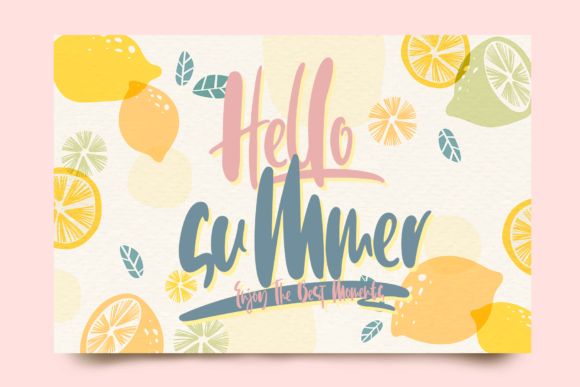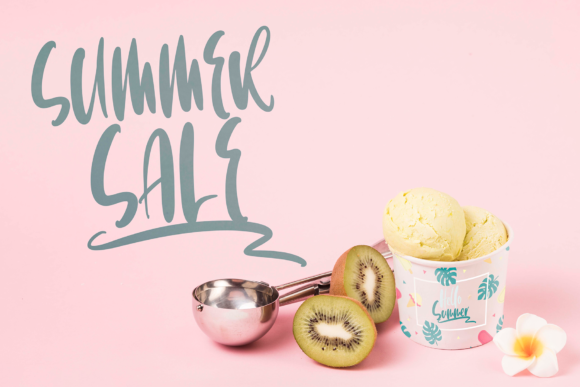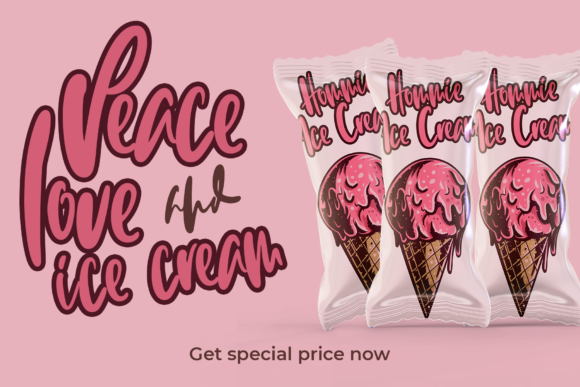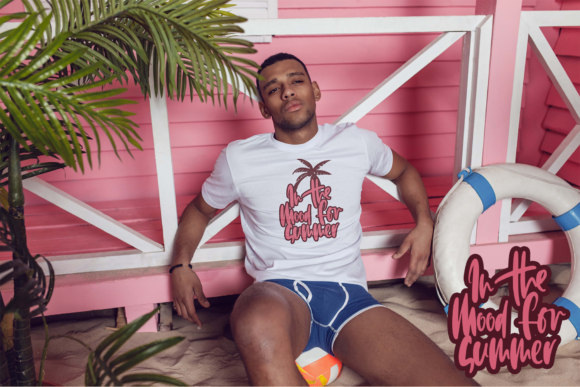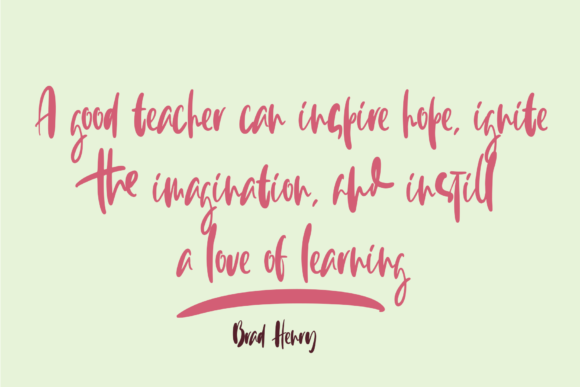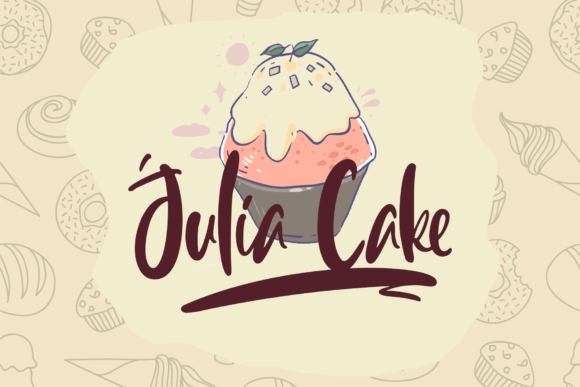
Introduction to Hello Juliette Font
You know that moment when you’re working on a project and you just can’t seem to find the right font to match your vision? The words are flowing, the design is taking shape, but something’s missing. That’s when I discovered the Hello Juliette Font, and it changed everything.
This exquisite handwritten font is more than just a pretty face – it’s a game-changer for designers. With its classy calligraphic influences and fresh, contemporary feel, Hello Juliette Font is the perfect addition to any creative project. Whether you’re working on a branding project, a wedding invitation, or a blog post, this font is sure to elevate your design to new heights.
Key Features of Hello Juliette Font
- High-quality design resource ideal for creative projects and personal use
- Unique, elegant design with a transparent background, perfect for adding a touch of sophistication to any project
- Features a clear, readable font style suitable for body text and headings in various design applications
- Perfect for designers, artists, and writers looking for a reliable and high-quality design resource
Honest Review: Hello Juliette Font
I recently had the opportunity to work with the Hello Juliette Font, and I must say it’s been a delightful experience. As a designer, I’m always on the lookout for high-quality design resources that can elevate my creative projects.
What works well: ✨ The font is incredibly versatile, suitable for a wide range of design applications, from elegant invitations to modern logos. I particularly appreciate the various weights and styles available, which allow for seamless customization to suit different design needs.
- ✨ The font’s elegant script style adds a touch of sophistication to any design project.
- ✨ The various font weights and styles provide ample flexibility for customization.
However, there are a few limitations: ⚠️ The font may not be suitable for designs requiring a bold, sans-serif look. Additionally, the transparent background option can sometimes result in inconsistent text rendering, although this is not a deal-breaker.
Overall, I’m thoroughly impressed with the Hello Juliette Font. Its elegance, versatility, and high-quality design make it an excellent addition to any designer’s toolkit. While it may have some limitations, I believe the benefits far outweigh the drawbacks.
Hello Juliette Font
Designing with Hello Juliette Font
Hello Juliette Font is a high-quality design resource that adds a touch of elegance to any creative project. With its beautiful, hand-drawn style and transparent background, this font is perfect for designers looking to elevate their work.
Tips for Getting the Most Out of Hello Juliette Font
To get the most out of Hello Juliette Font, be sure to:
Experiment with different font sizes and styles to create visual interest.
Pair Hello Juliette Font with other fonts to create a unique and visually appealing design.
Use the transparent background feature to create a sense of depth and dimension in your design.
Hello Juliette Font is perfect for:
Wedding invitations and stationery.
Birth announcements and baby shower invitations.
Event branding and marketing materials.
Alternatives to Hello Juliette Font
Avenir Next Font
Avenir Next Font is a high-quality sans-serif font designed for creative projects. It’s available for free download and features a transparent background, making it perfect for designing graphics and logos. Avenir Next Font is ideal for projects that require a modern and clean look.
Q: Is the Hello Juliette Font suitable for print or digital projects?
The Hello Juliette Font is a versatile design resource suitable for both print and digital projects. Its high-quality design and transparent background make it an excellent choice for a variety of creative projects, from business cards to website headers. However, it’s essential to check the font’s resolution and legibility at different sizes to ensure optimal results.